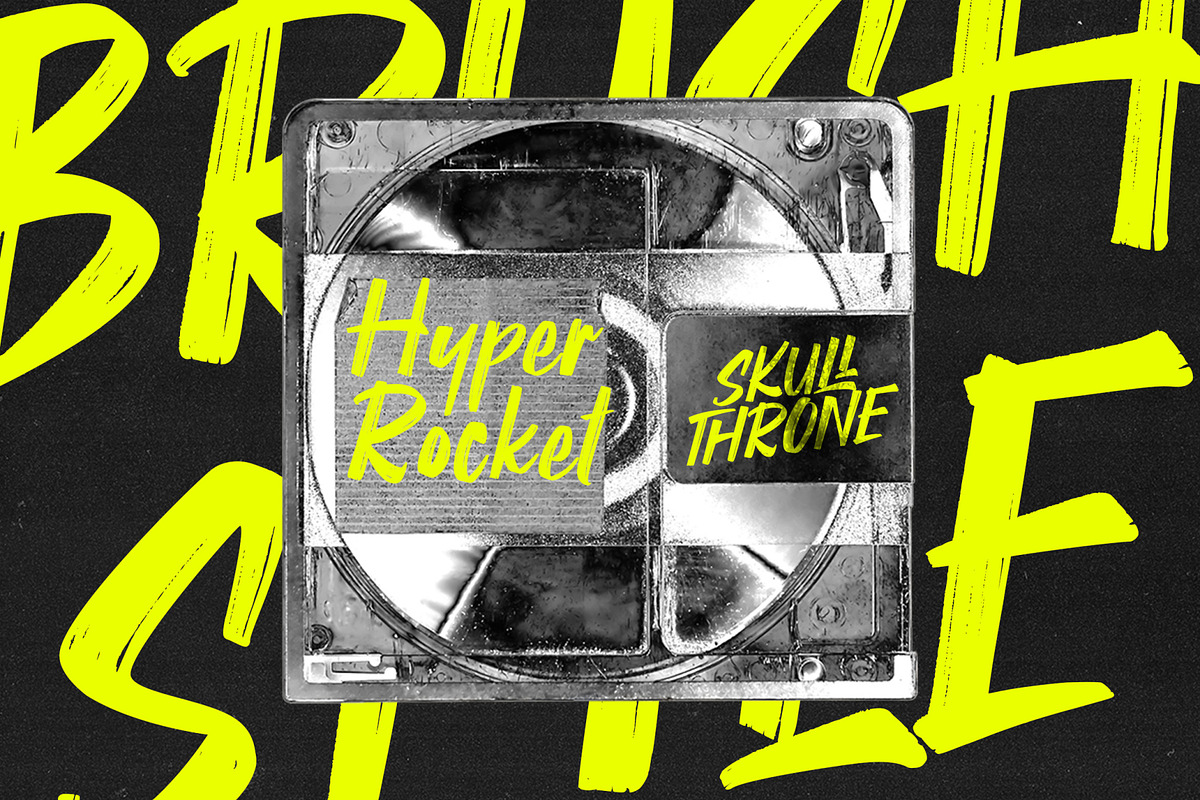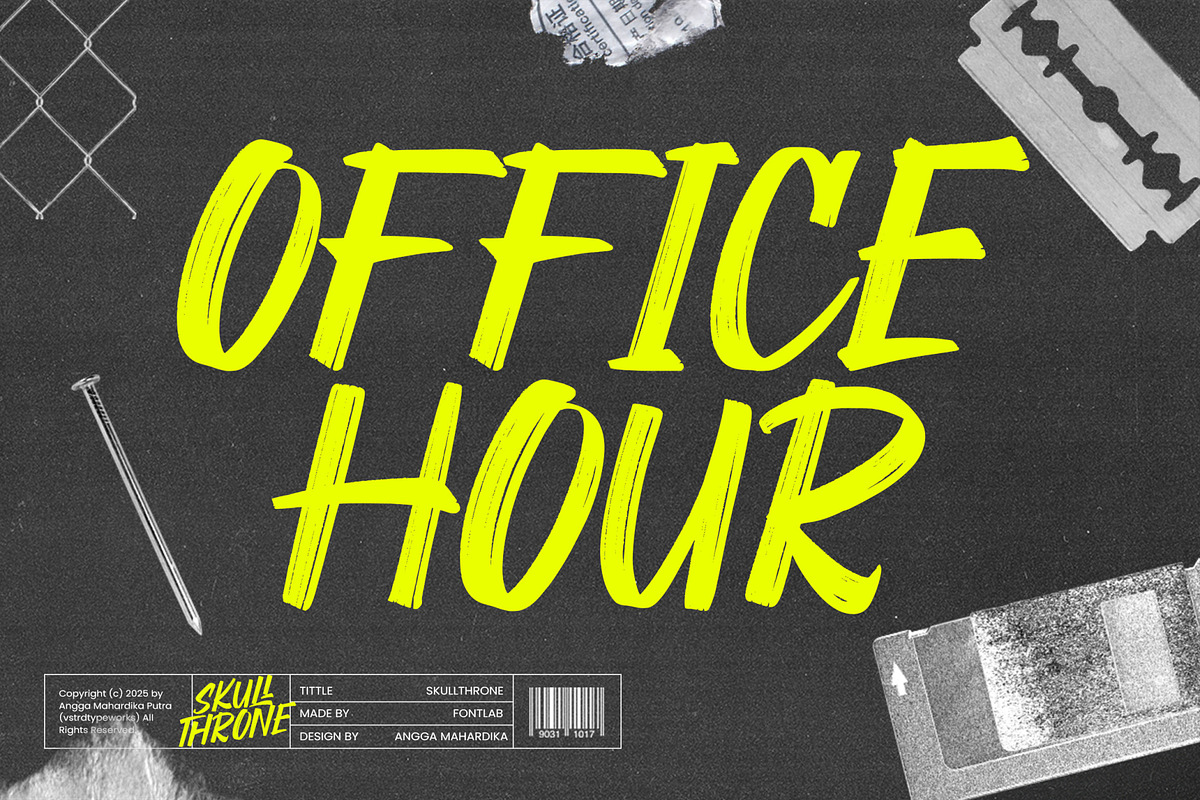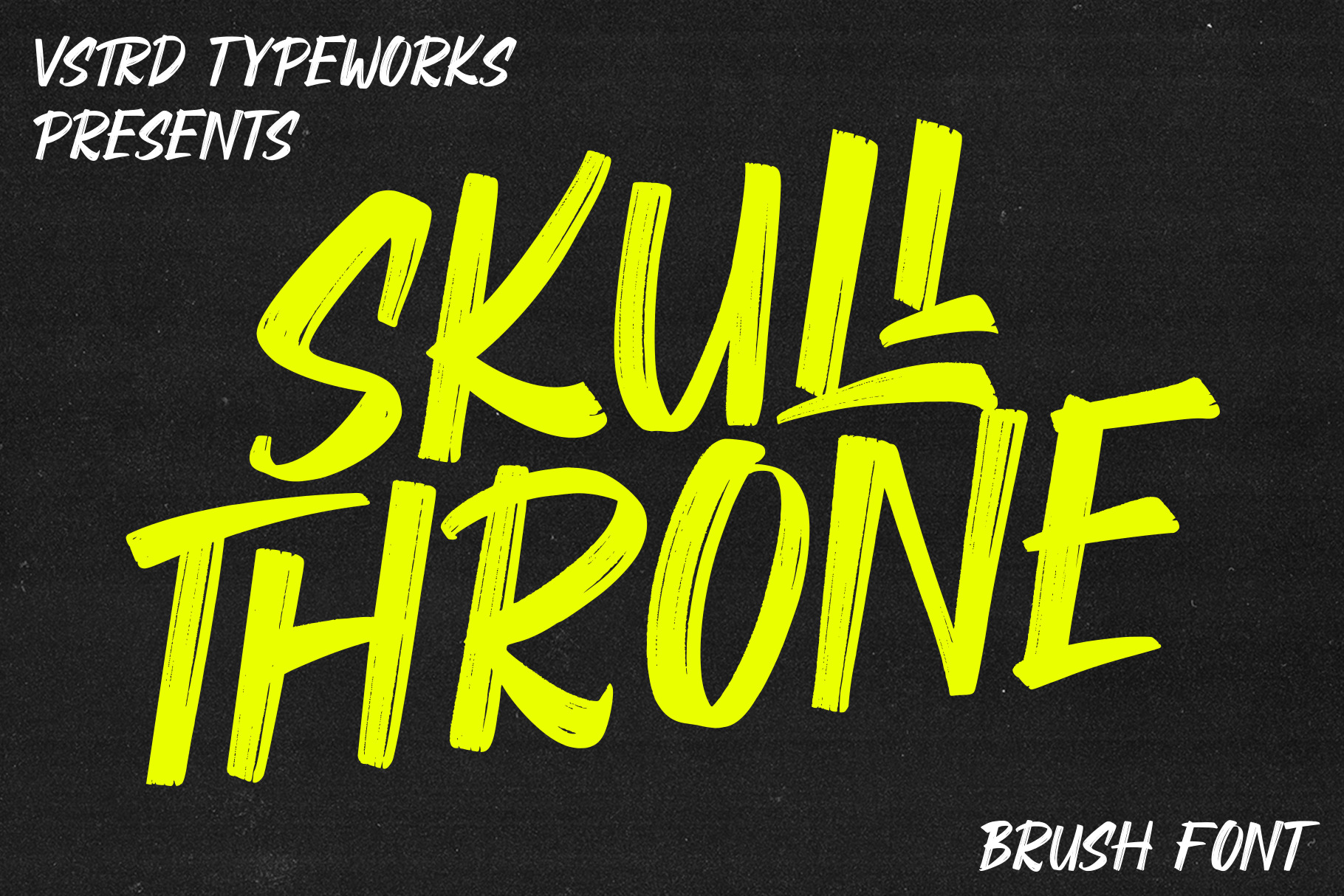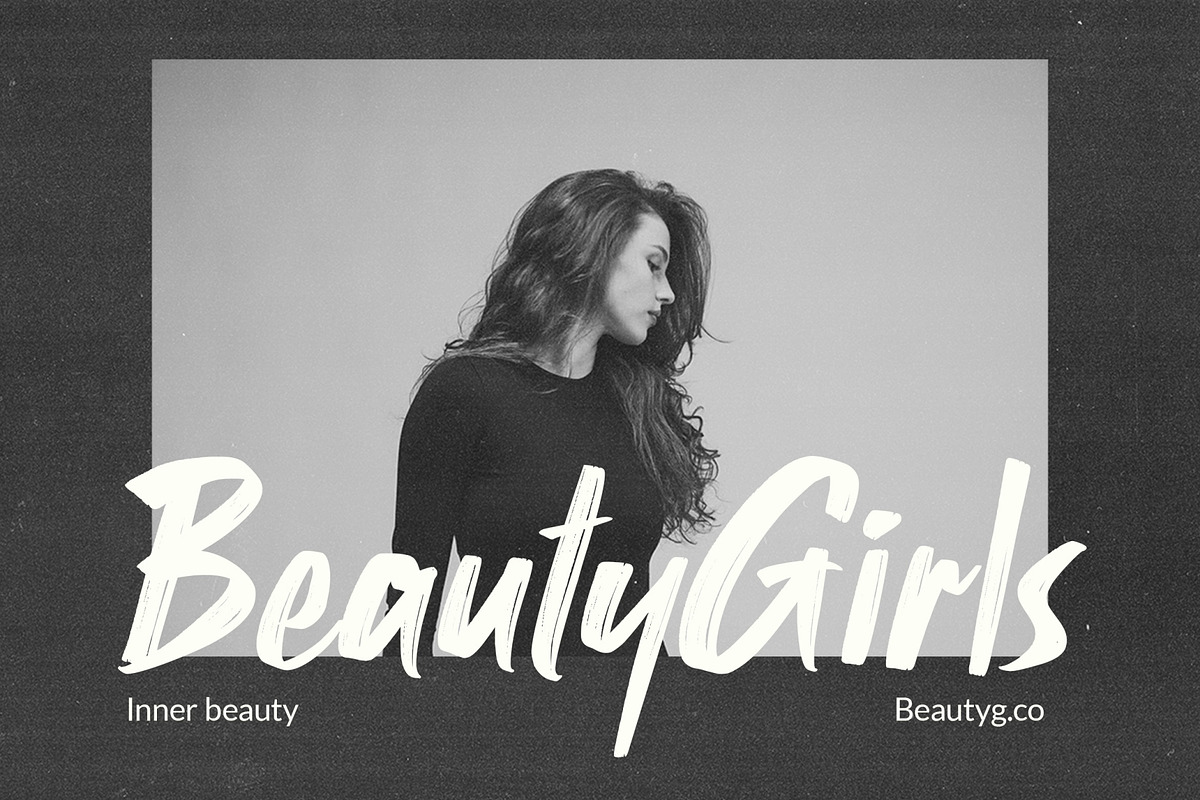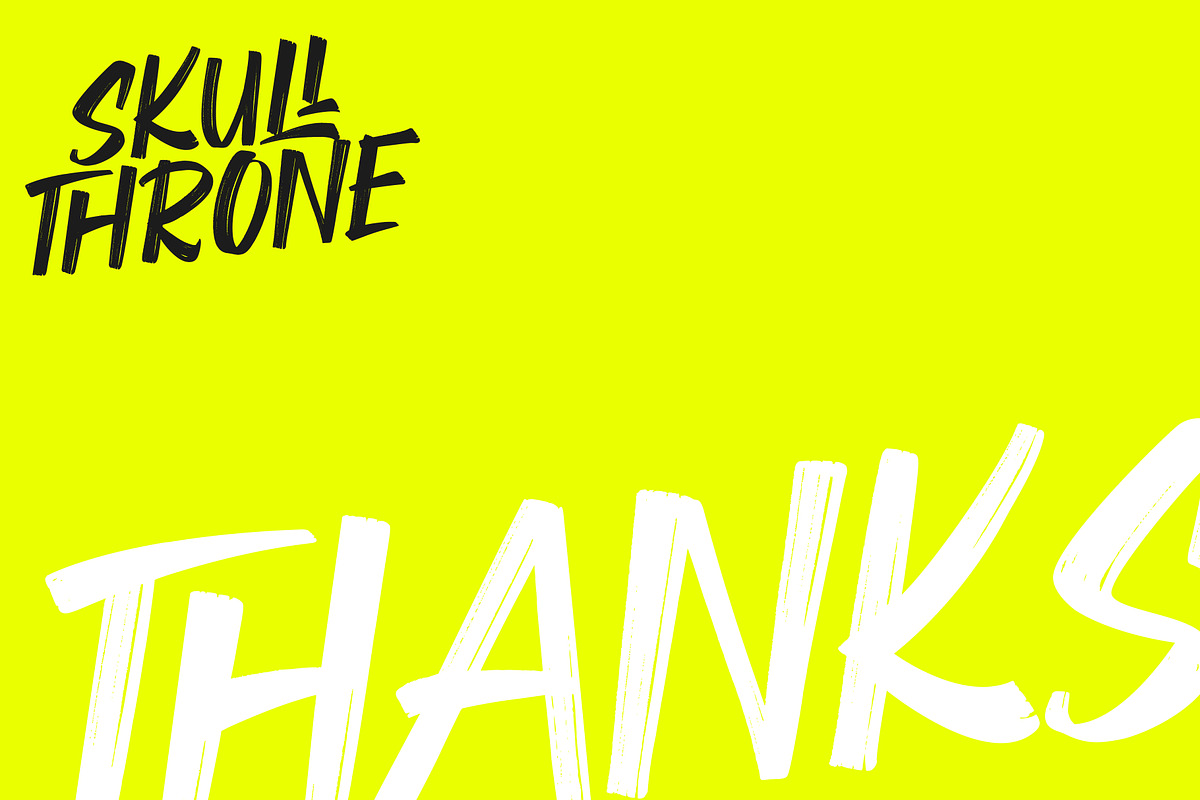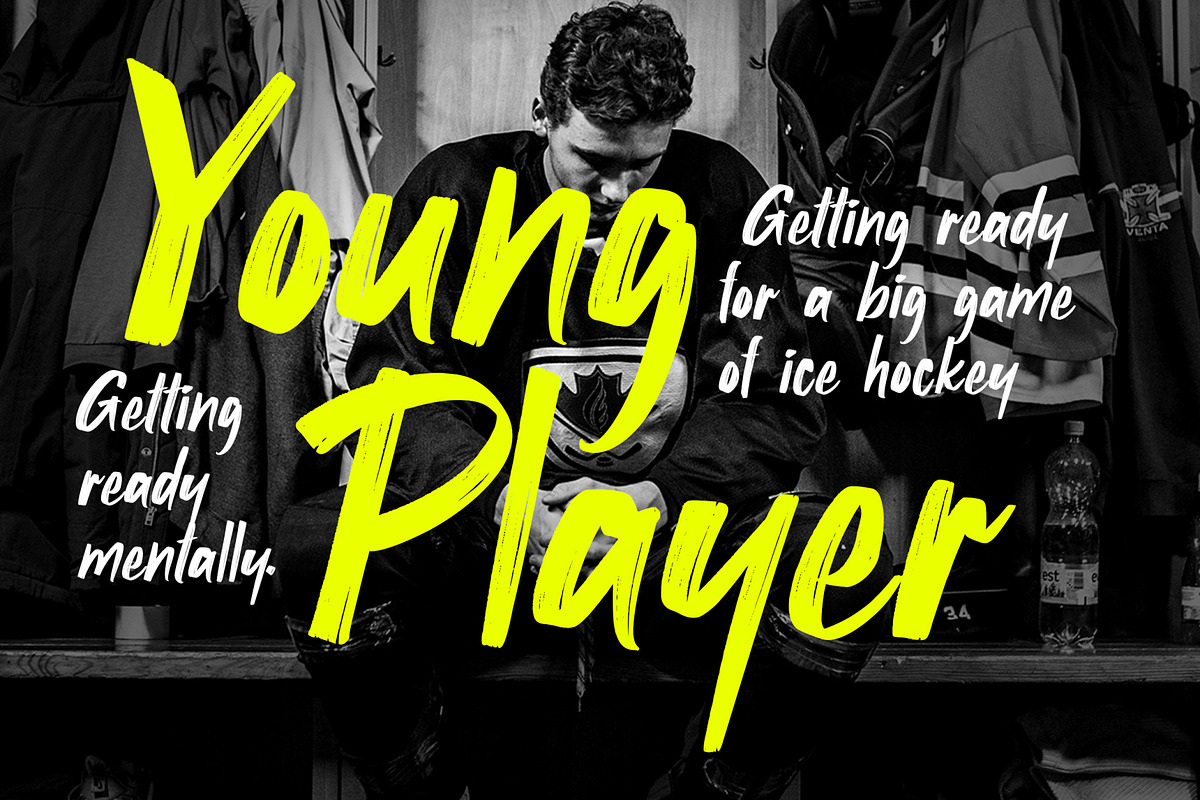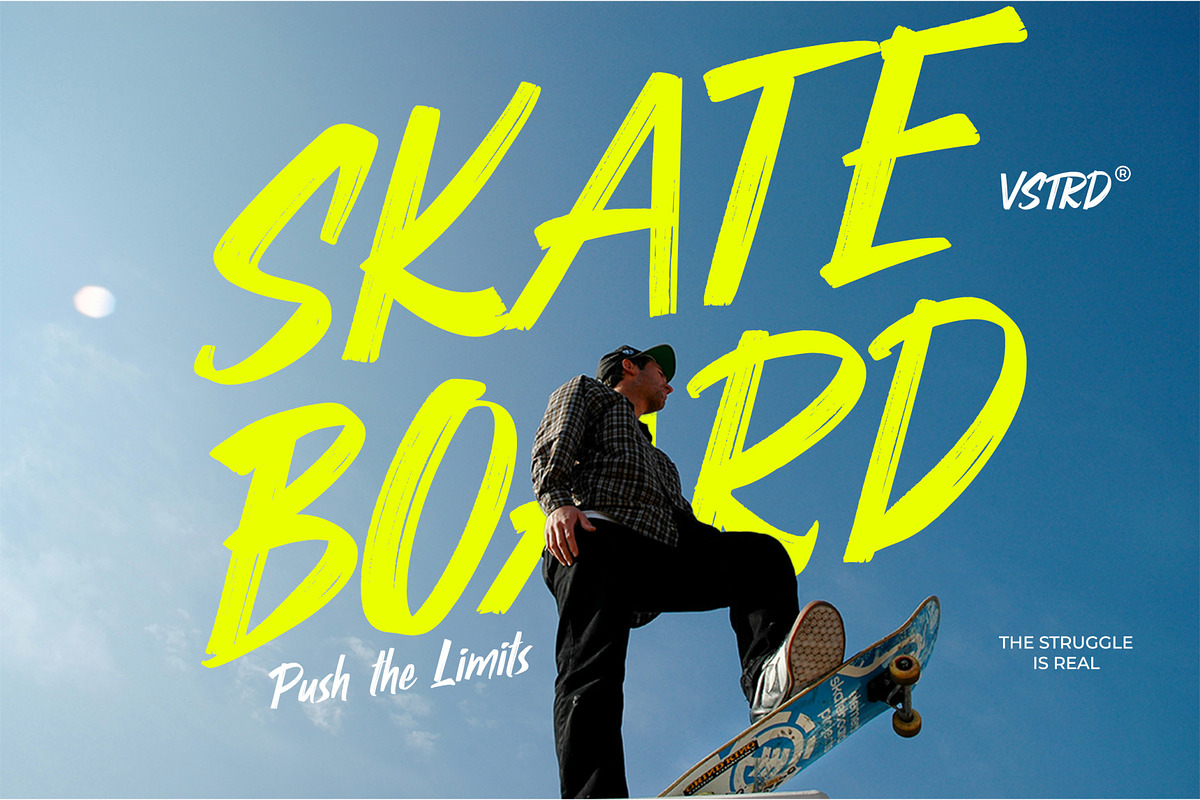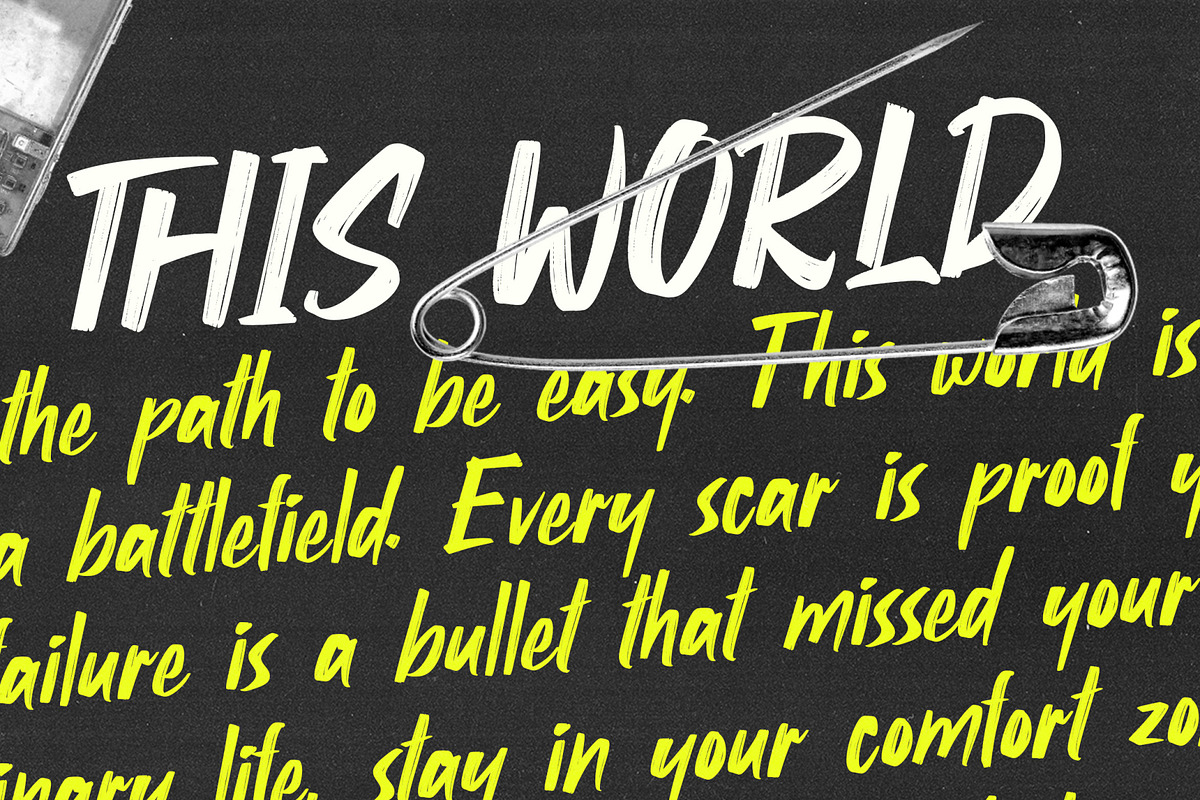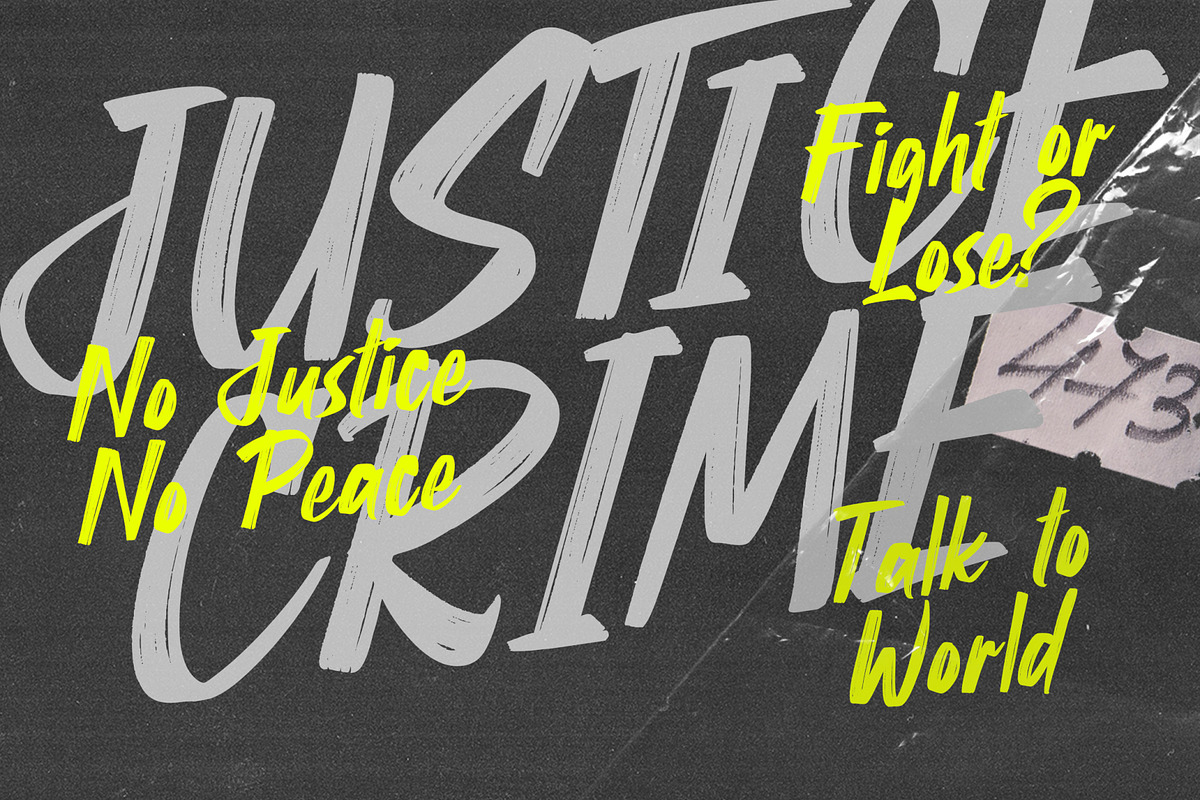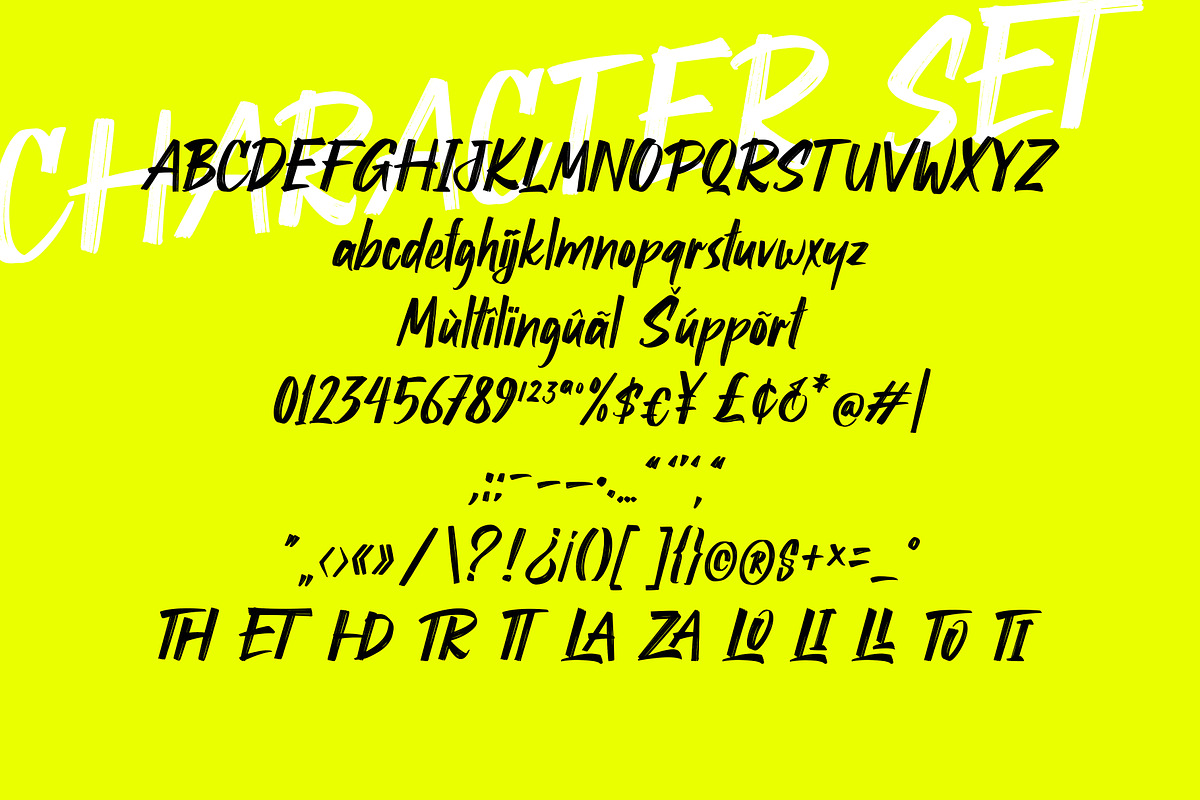
Skullthrone - Brush Font
Unleash bold energy with Skullthrone a Brush Font, a fierce hand-painted typeface built to dominate every design. Crafted with raw brush strokes and unapologetic attitude, Skullthrone delivers loud, expressive lettering that demands attention. Perfect for posters, streetwear branding, album covers, social media graphics, and powerful quotes, this font brings rebellious character and unstoppable motion to your work. If your design needs impact, edge, and fearless style — Skullthrone is ready to rule the canvas.
- All Caps Uppercase & Lowercase